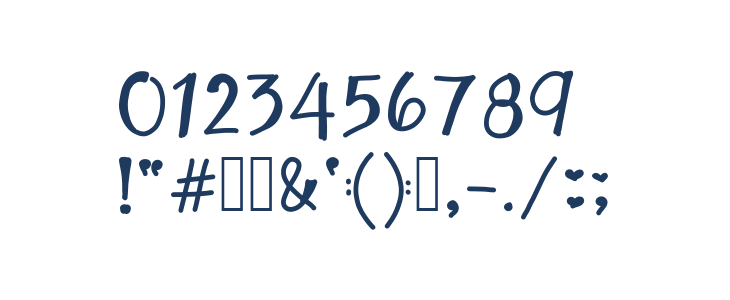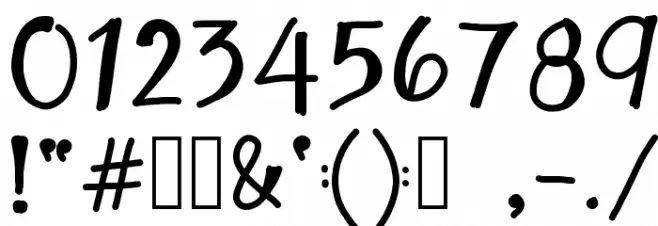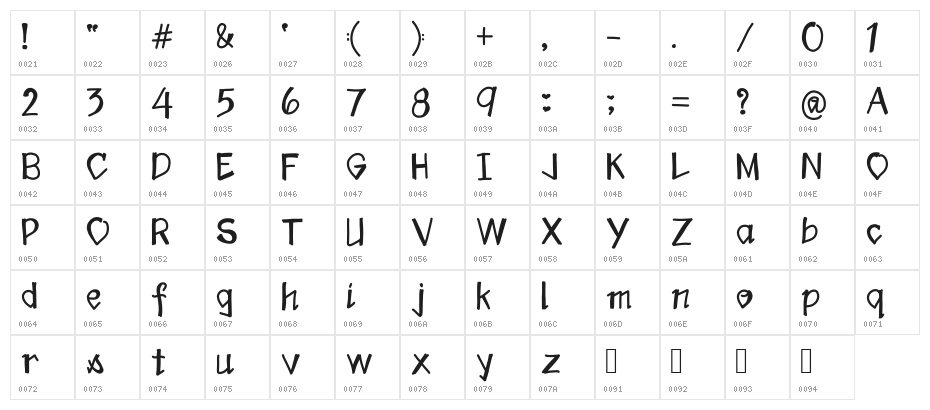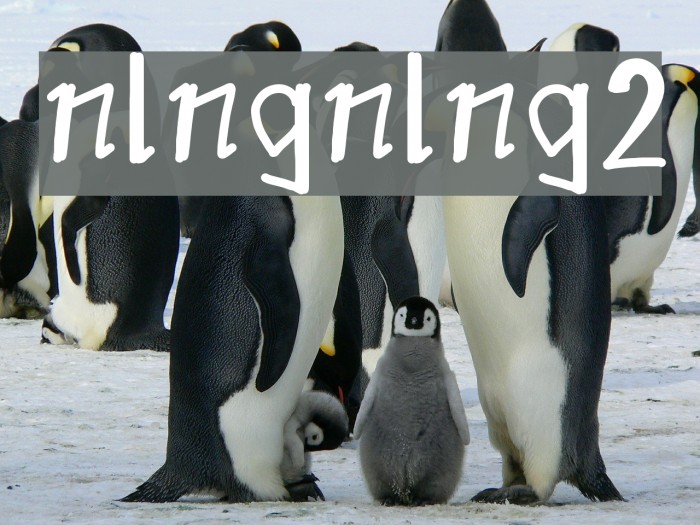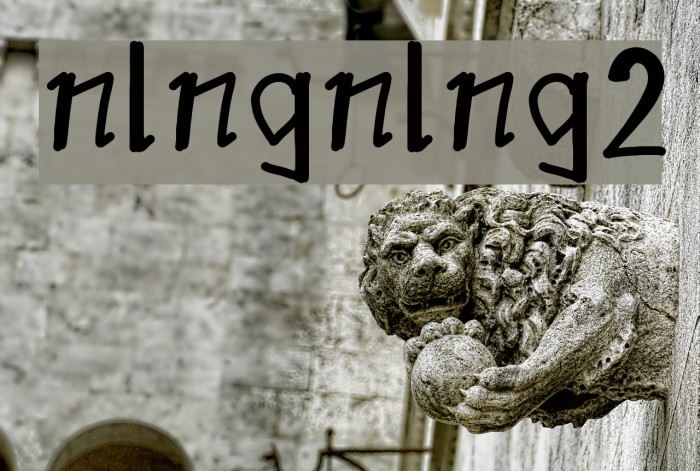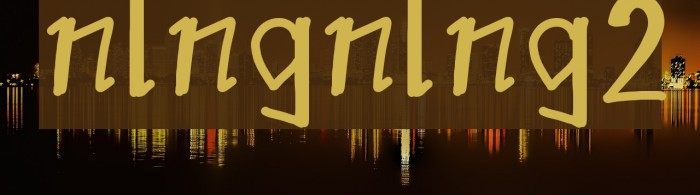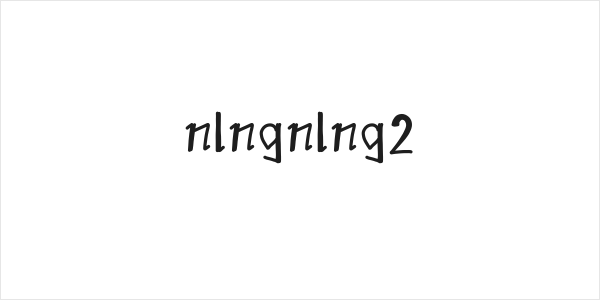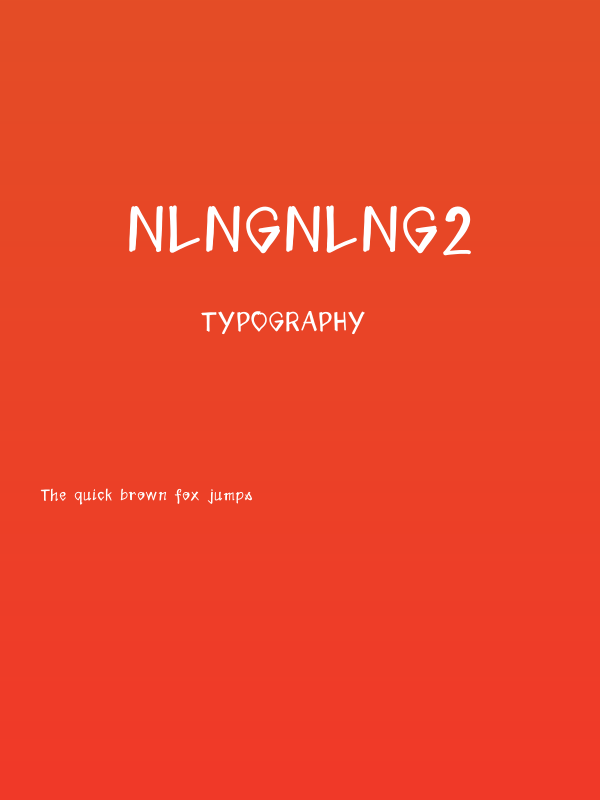
nlngnlng2 Font
nlngnlng2 Description
This font features a playful and dynamic style, characterized by its irregular and slightly whimsical letterforms. The uppercase letters are bold and slightly tilted, giving a sense of movement and energy. The lowercase letters maintain this playful aesthetic, with some characters having unique, exaggerated features, such as the 'g' and 'y'. The numerals are consistent with the overall style, offering a quirky and informal appearance. Special characters are creatively designed, adding to the font's distinctive personality. This font is well-suited for projects that aim to convey a sense of fun and creativity.
| Overall Style | Playful, Creative |
| Proposed Projects | Ideal for children's books, playful branding, creative posters, and informal invitations. |